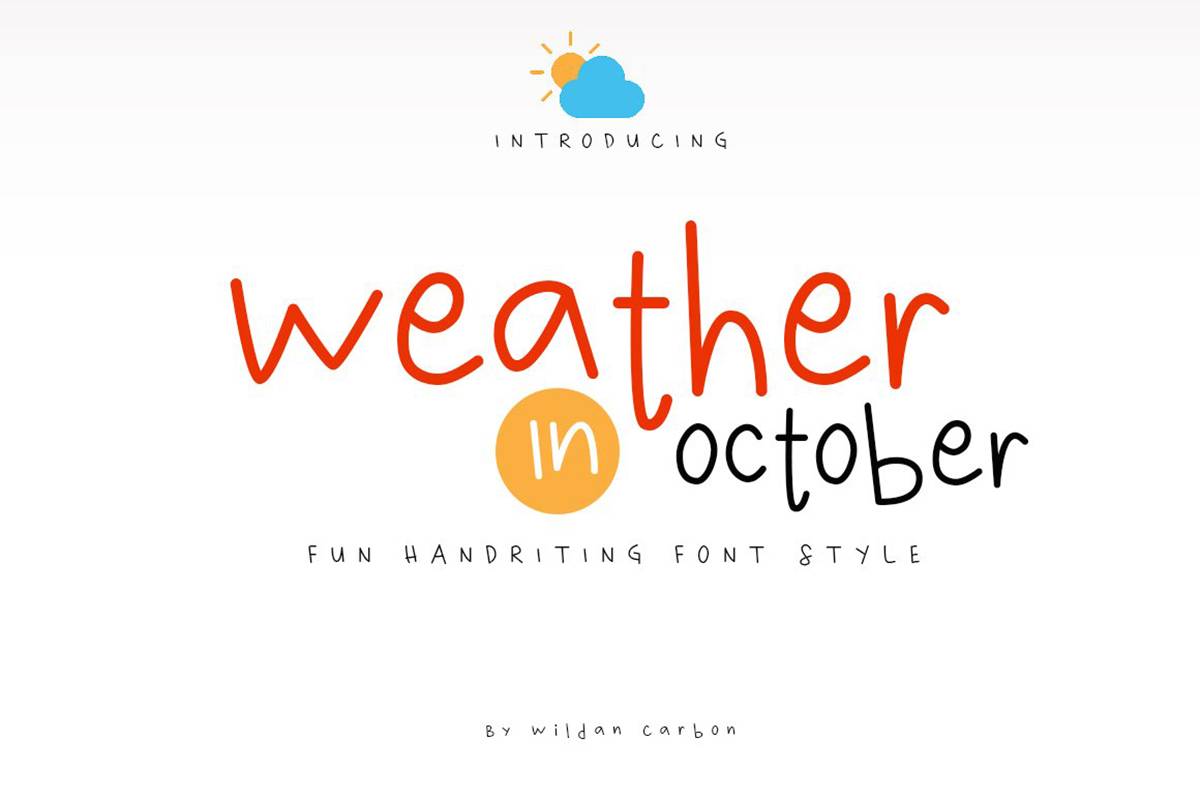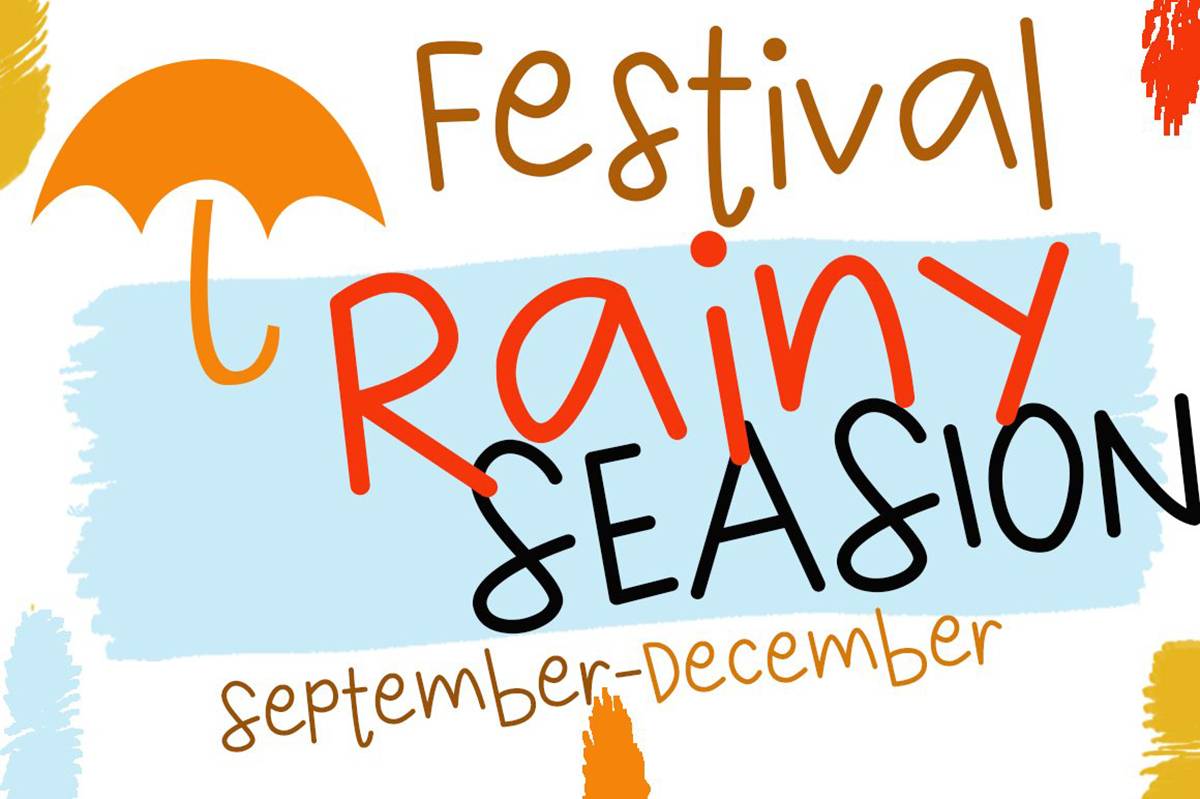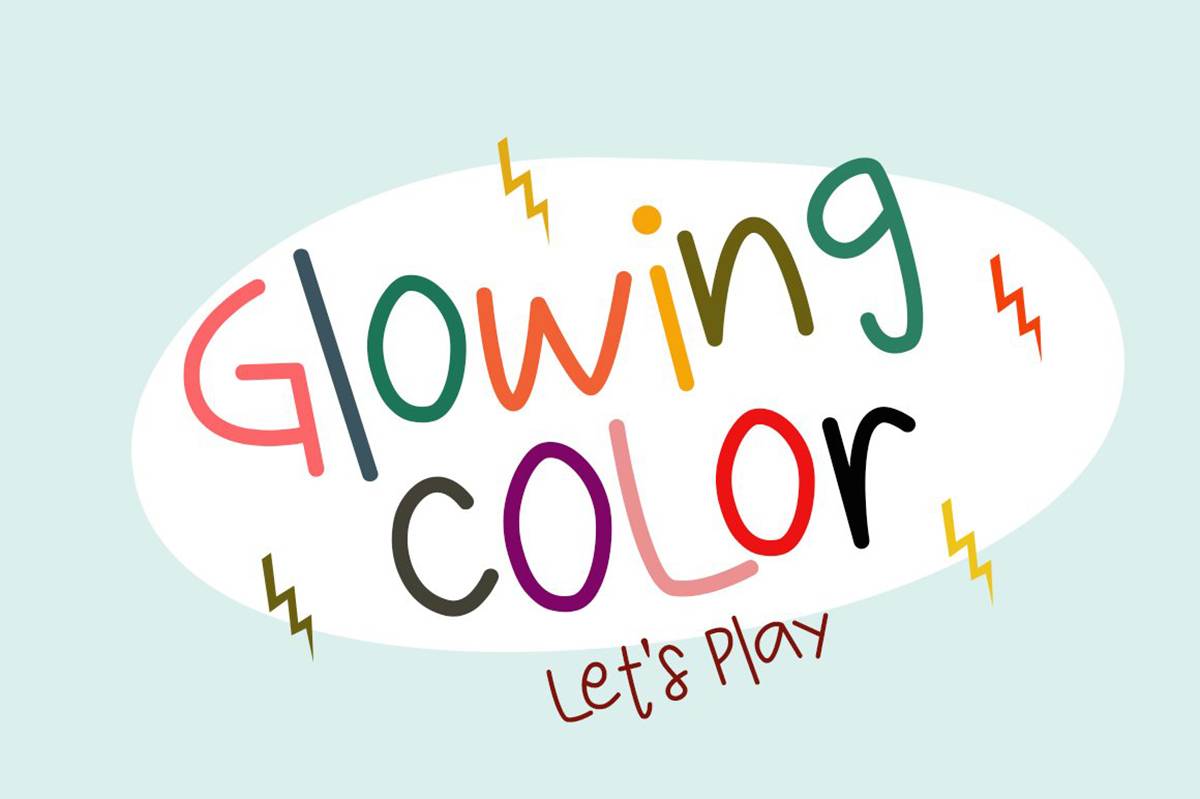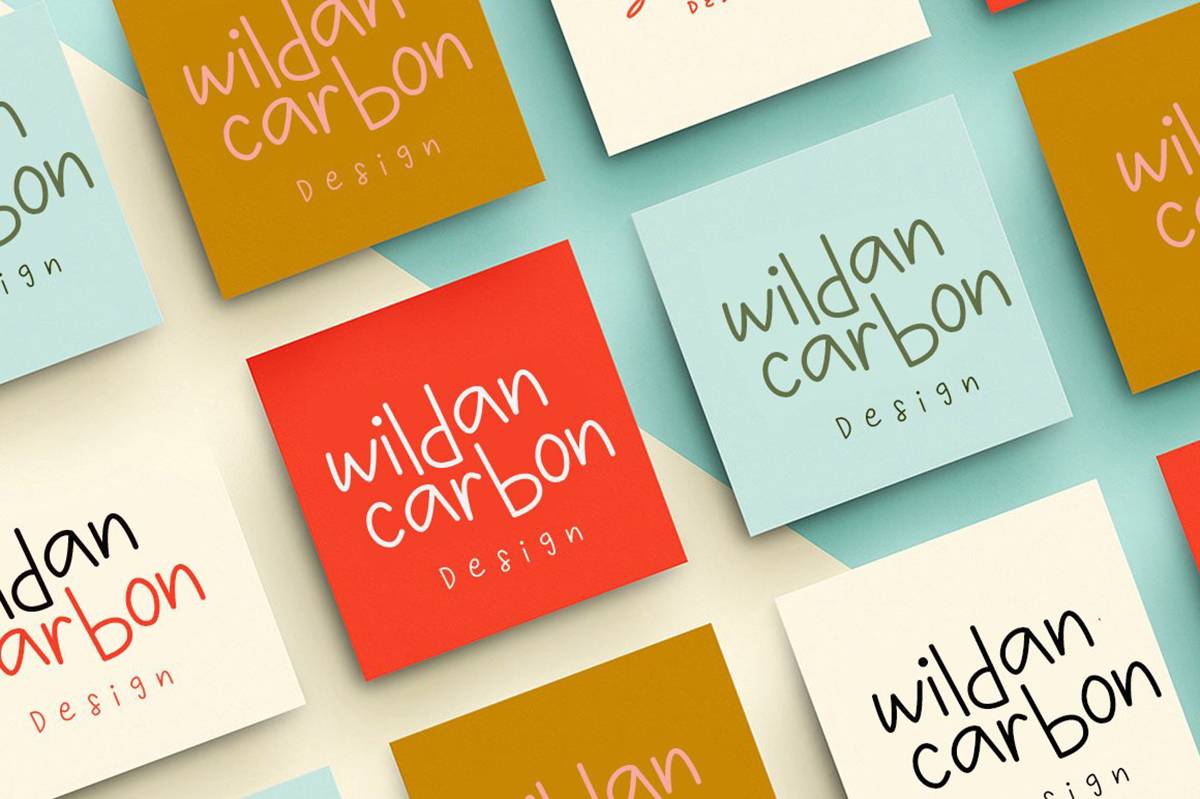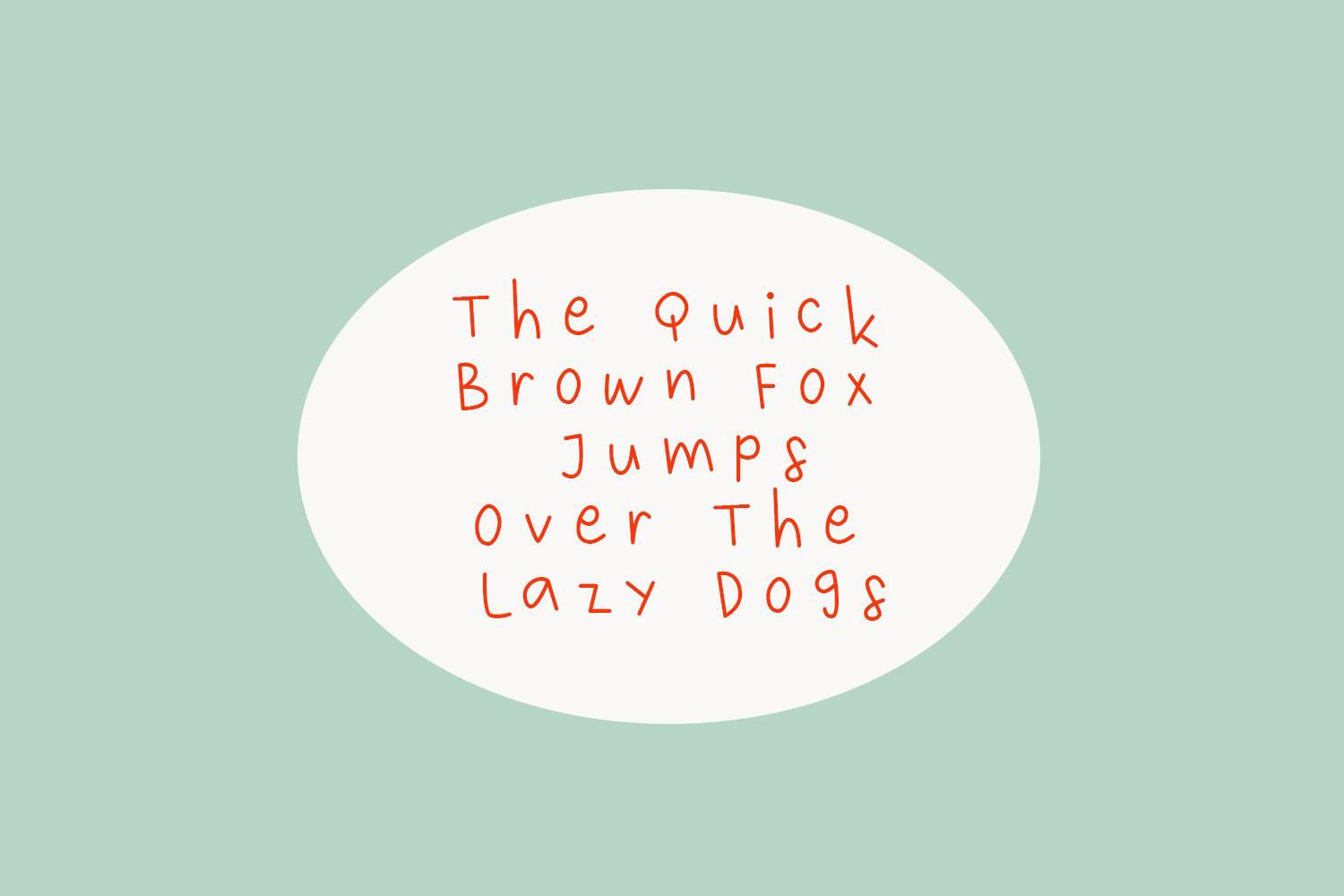
Weather in October is a casual, handwritten sans serif font with a light weight and a slightly condensed width, featuring tall, airy letterforms and a natural, flowing stroke style. Its playful, approachable character makes it ideal for informal, creative projects such as greeting cards, blogs, and personal branding, where a friendly and authentic feel is desired. This font’s clear readability combined with its whimsical touch adds personality without sacrificing clarity.
Weather in October Font
About Weather in October Font